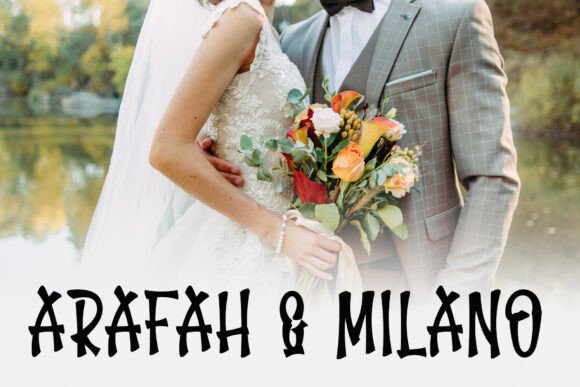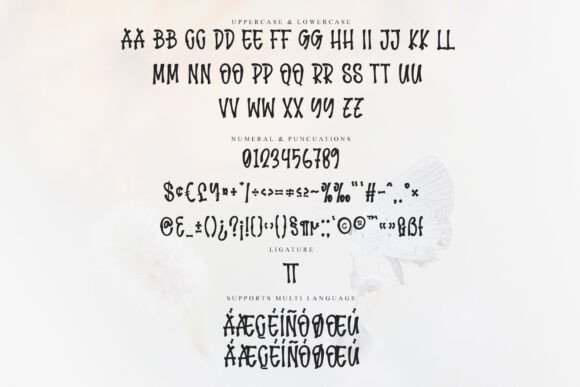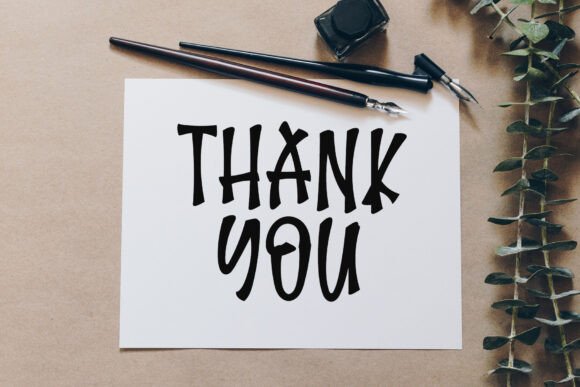
Introduction to Outbroad Font Font
Fonts play a crucial role in design, and the Outbroad Font font is a typeface that brings both character and versatility to any project. Whether you’re working on a branding project, a website, or a print design, the Outbroad Font font offers a unique style that can elevate your work.
| 📌 Font Name | Outbroad Font |
| 👤 Author | YanStudio |
Outbroad is a sweet and friendly display font.
Key Features of Outbroad Font Font
Why Choose Outbroad Font Font?
The Outbroad Font font is more than just a typeface – it’s a design tool that helps you communicate your message with style and clarity. Its unique character set and versatile design make it suitable for a wide range of applications, from elegant invitations to bold headlines.
With its carefully crafted letterforms and balanced proportions, the Outbroad Font font ensures readability and visual appeal across all mediums.
What makes Outbroad Font font special?
The Outbroad Font font stands out with its unique design, exceptional readability, and versatility across various design applications.